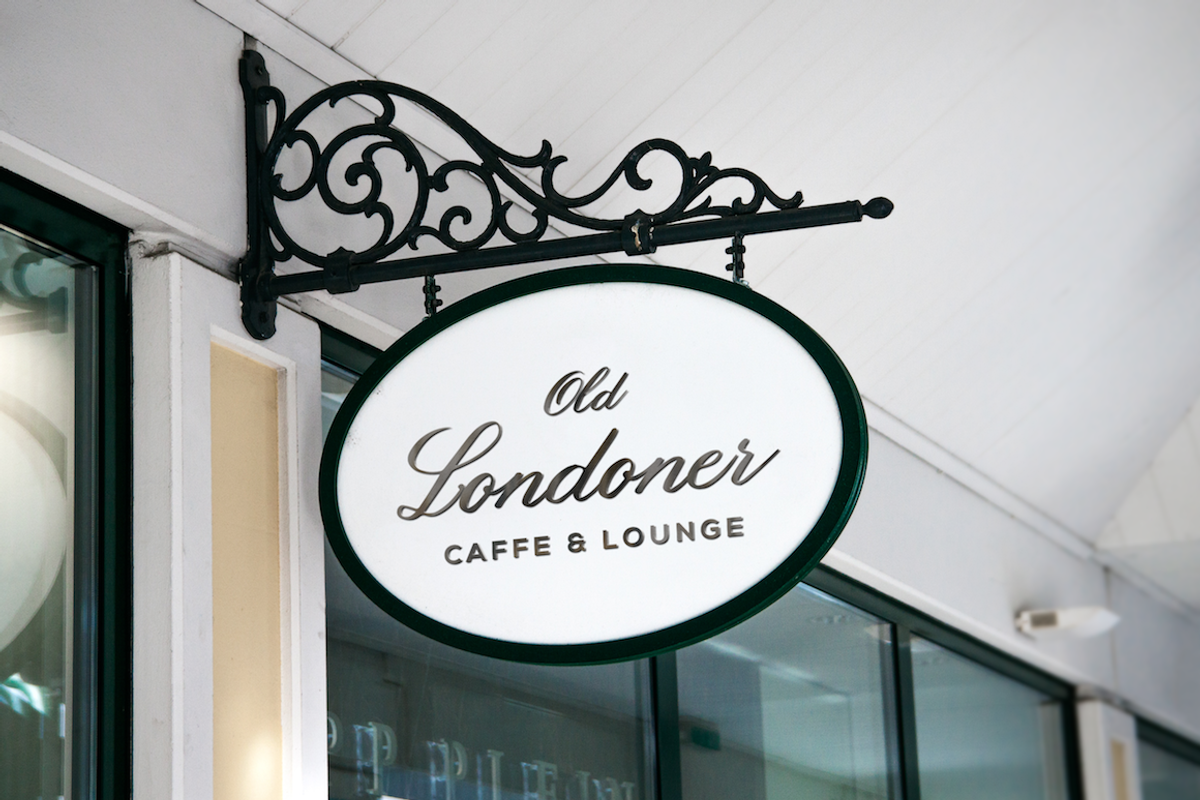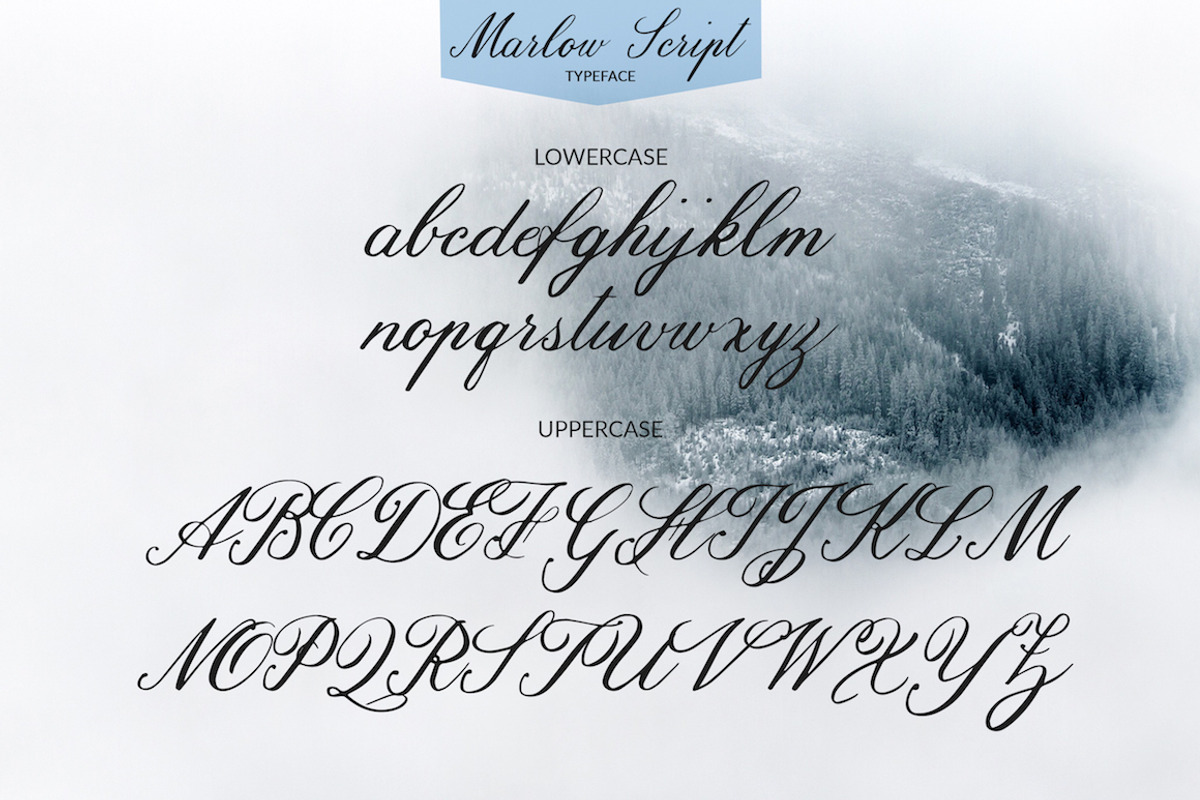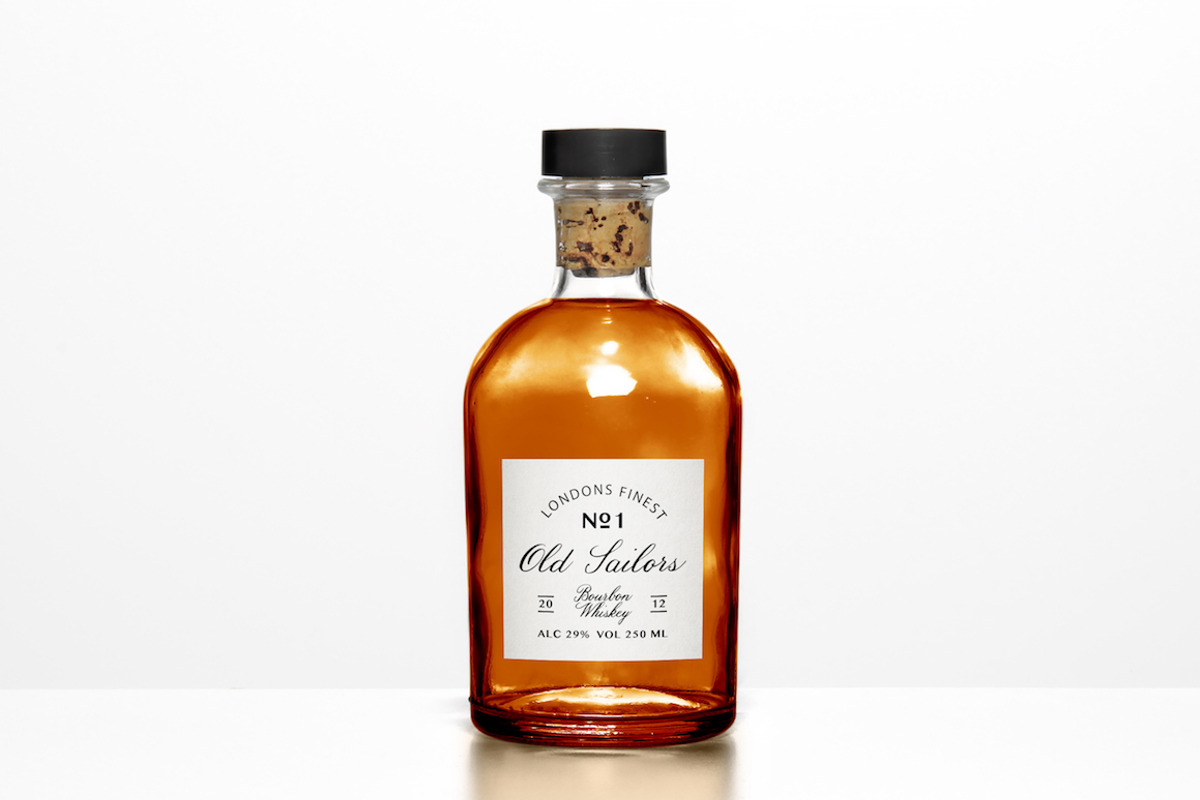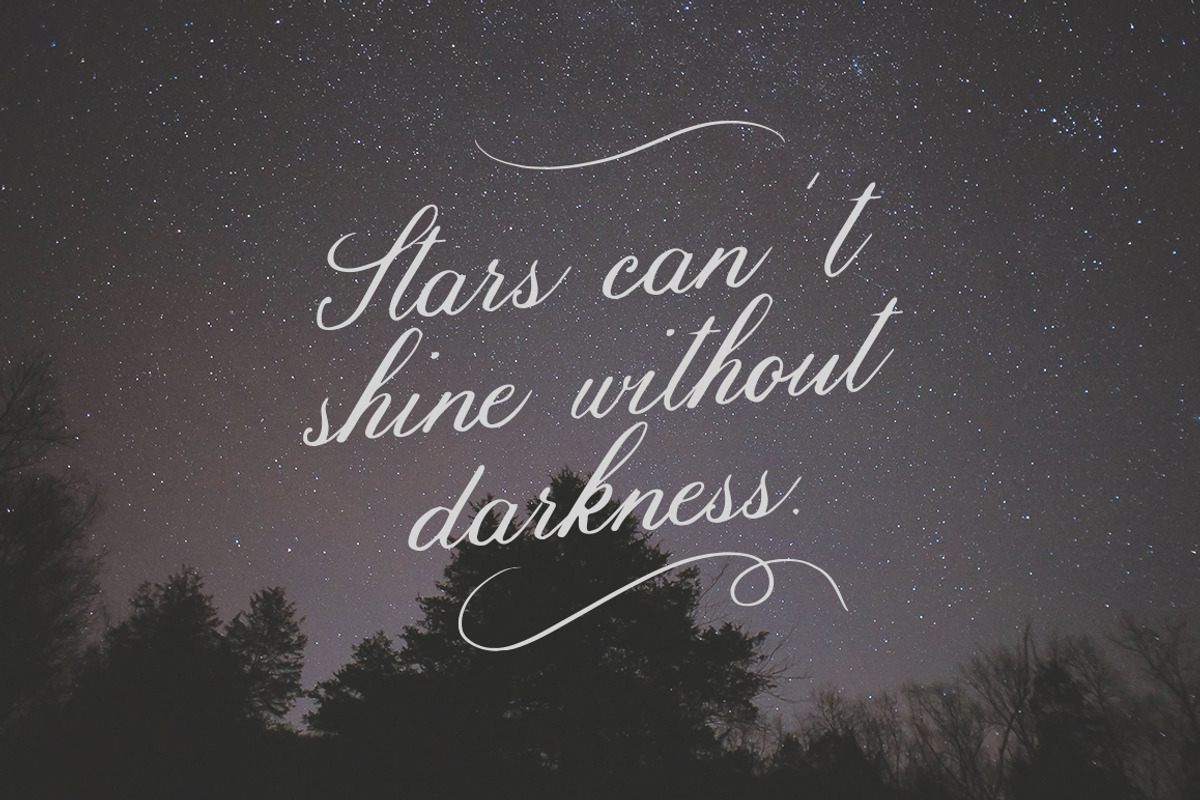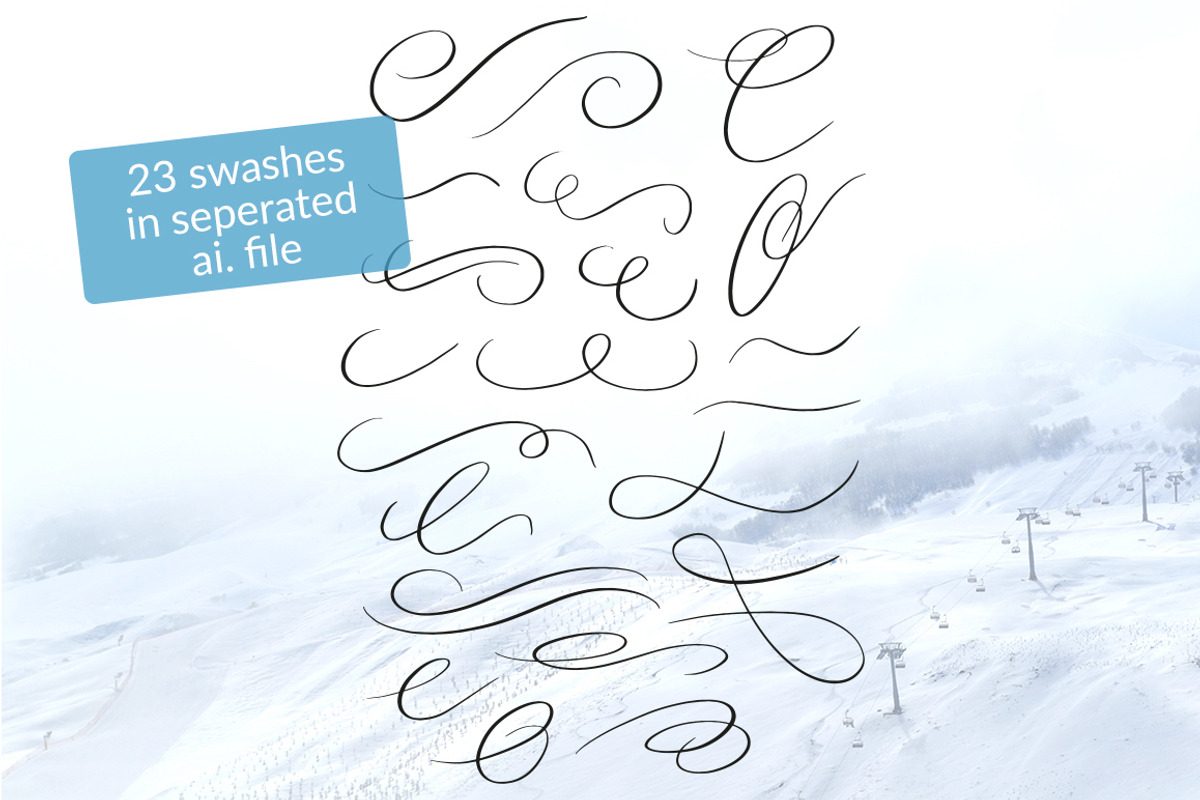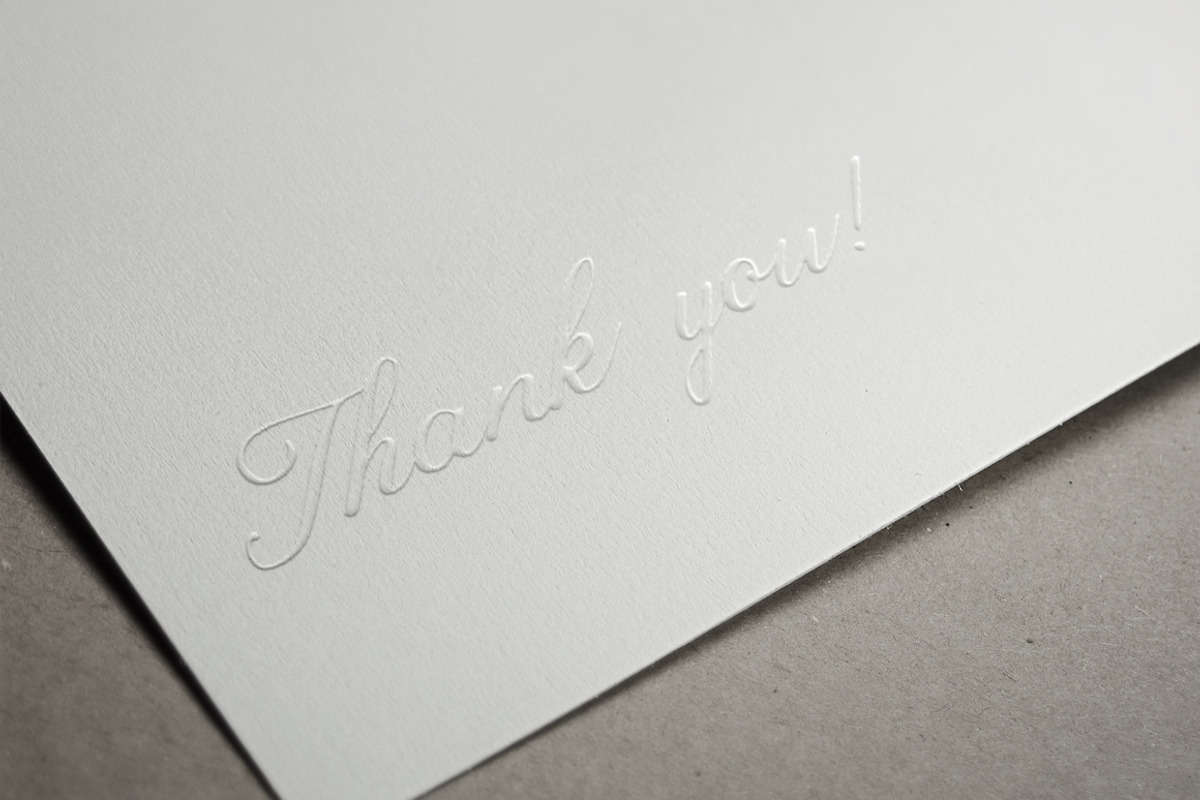
Marlow - Handmade Font
Marlow - Handmade Font by Studio FabianFischer is a font selected for branding, posters, packaging, typography.
- This typeface includes all uppercase and lowercase letters.
Why Marlow - Handmade Font is worth a look
Marlow - Handmade Font by Studio FabianFischer fits naturally into Branding, posters, packaging, typography.